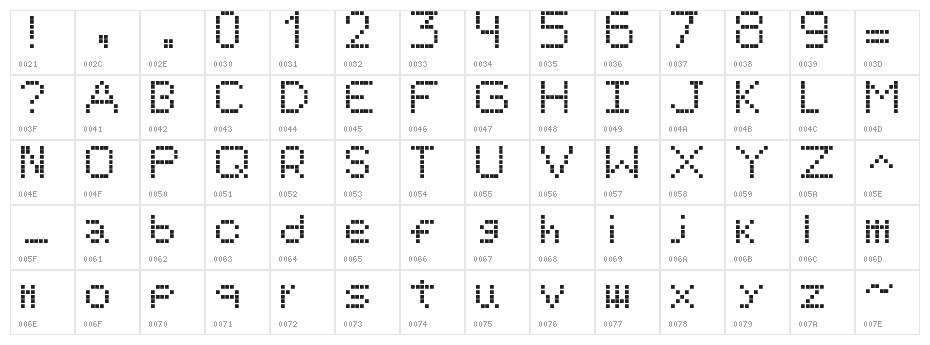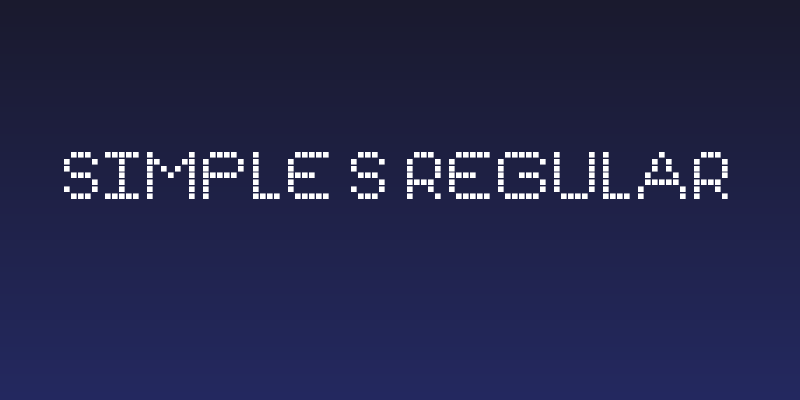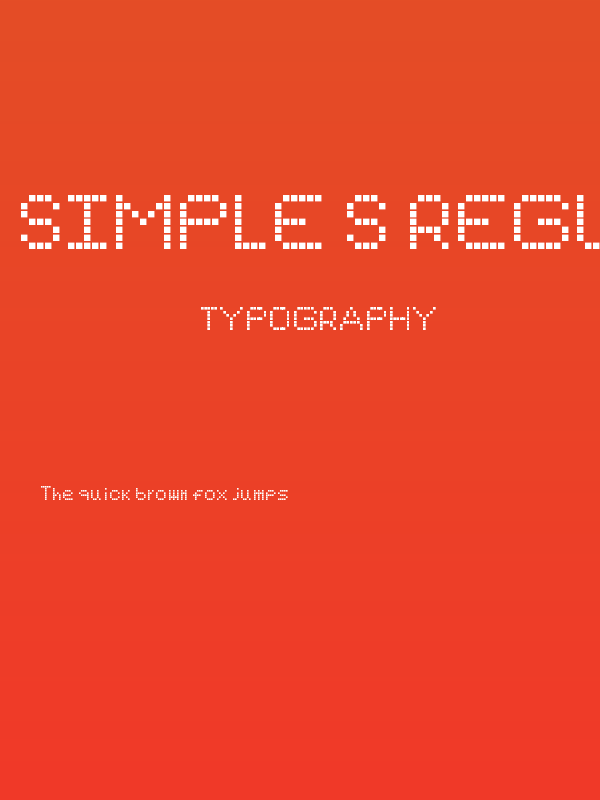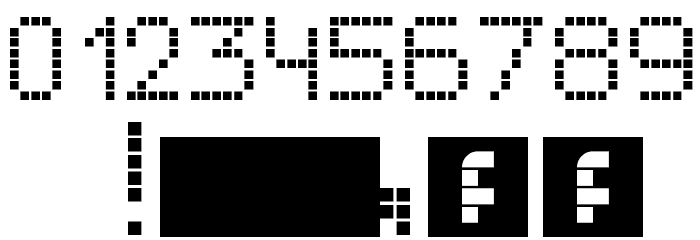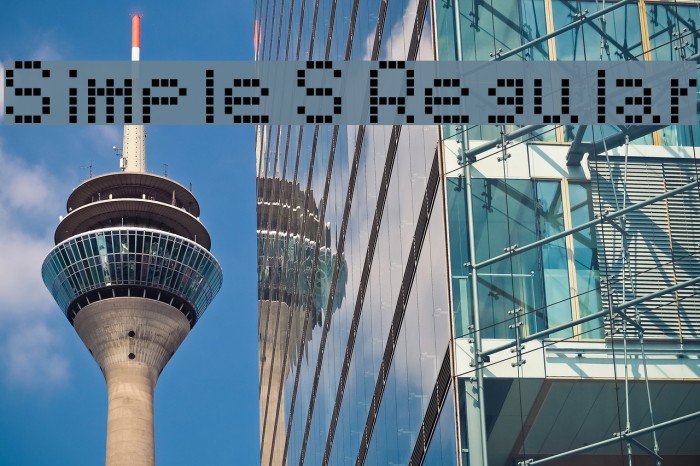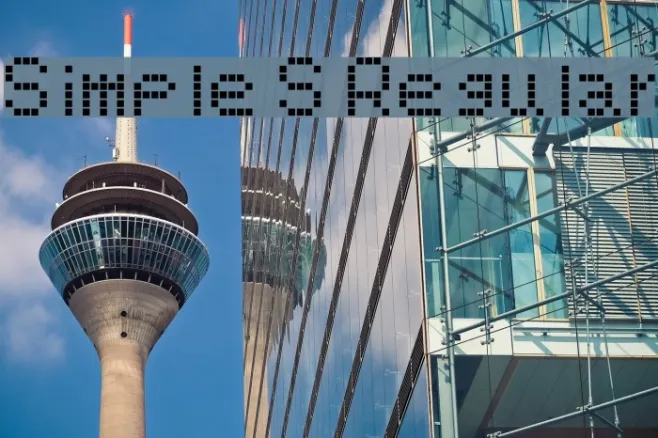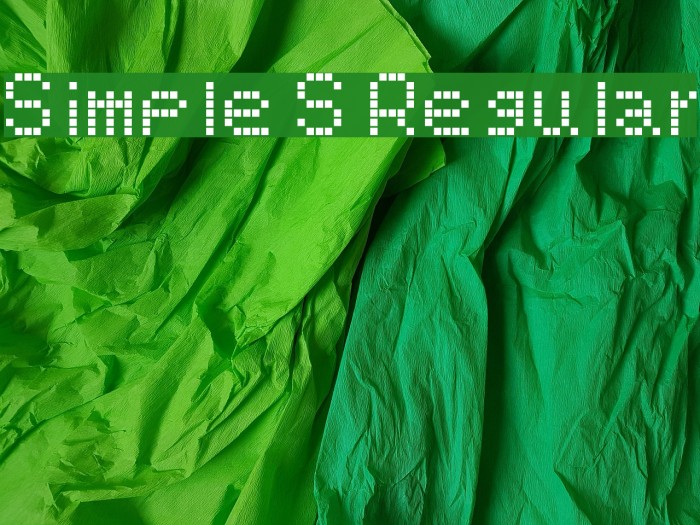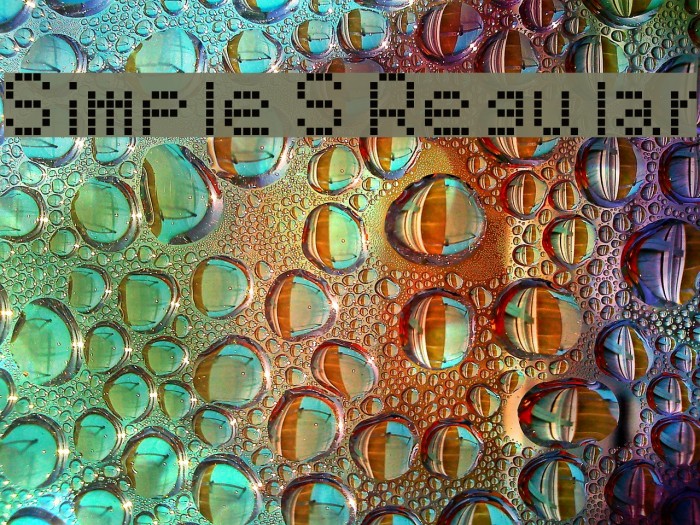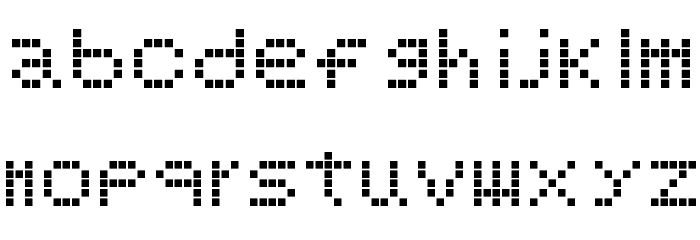
Simple S Regular Font
Simple S Regular Description
This font features a distinctive pixelated design, reminiscent of early digital displays and retro video games. Each character is constructed from a grid of small squares, giving it a blocky, geometric appearance. The uniformity in the size of the squares across all characters creates a cohesive and structured look. Despite its rigid form, the font maintains readability and clarity, making it suitable for digital and print media that aim to evoke a sense of nostalgia or a tech-inspired aesthetic. The uppercase and lowercase letters, as well as numbers and special characters, are all crafted with the same pixelated style, ensuring consistency throughout.
| Use Case | Headlines, Logos, Digital displays |
| Proposed Projects | Ideal for retro-themed video games, digital art projects, tech-inspired branding, and nostalgic print media. |